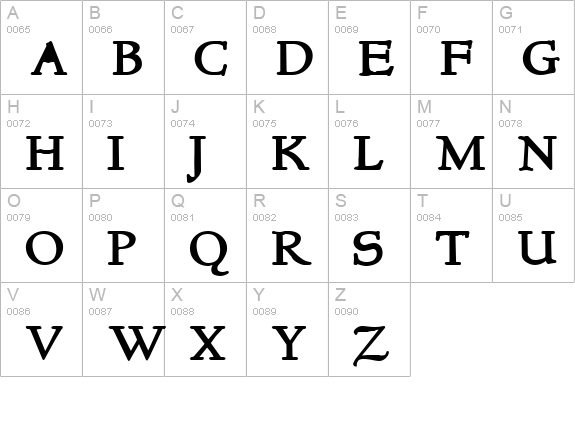
NewStyleSmallCaps Bold Font Details
NewStyleSmallCaps Bold is a strong, high-contrast variant in the NewStyleSmallCaps typeface family \xE2\x80\x94 well suited to headlines, attention-grabbing titles, and strong calls-to-action.
Introducing NewStyleSmallCaps Bold font - a sleek and modern typeface that exudes sophistication and style. This eye-catching font is perfect for making a statement in your designs, whether it be for branding, advertising, or any creative project. The bold and elegant small caps characters add a unique touch to your text, making it stand out from the crowd. And the best part? NewStyleSmallCaps Bold font is completely free to download at FontsMarket.com. This means you can enhance your projects with this stunning font without breaking the bank. Don't miss out on this opportunity to elevate your designs with the striking NewStyleSmallCaps Bold font - download it today and unleash your creativity!